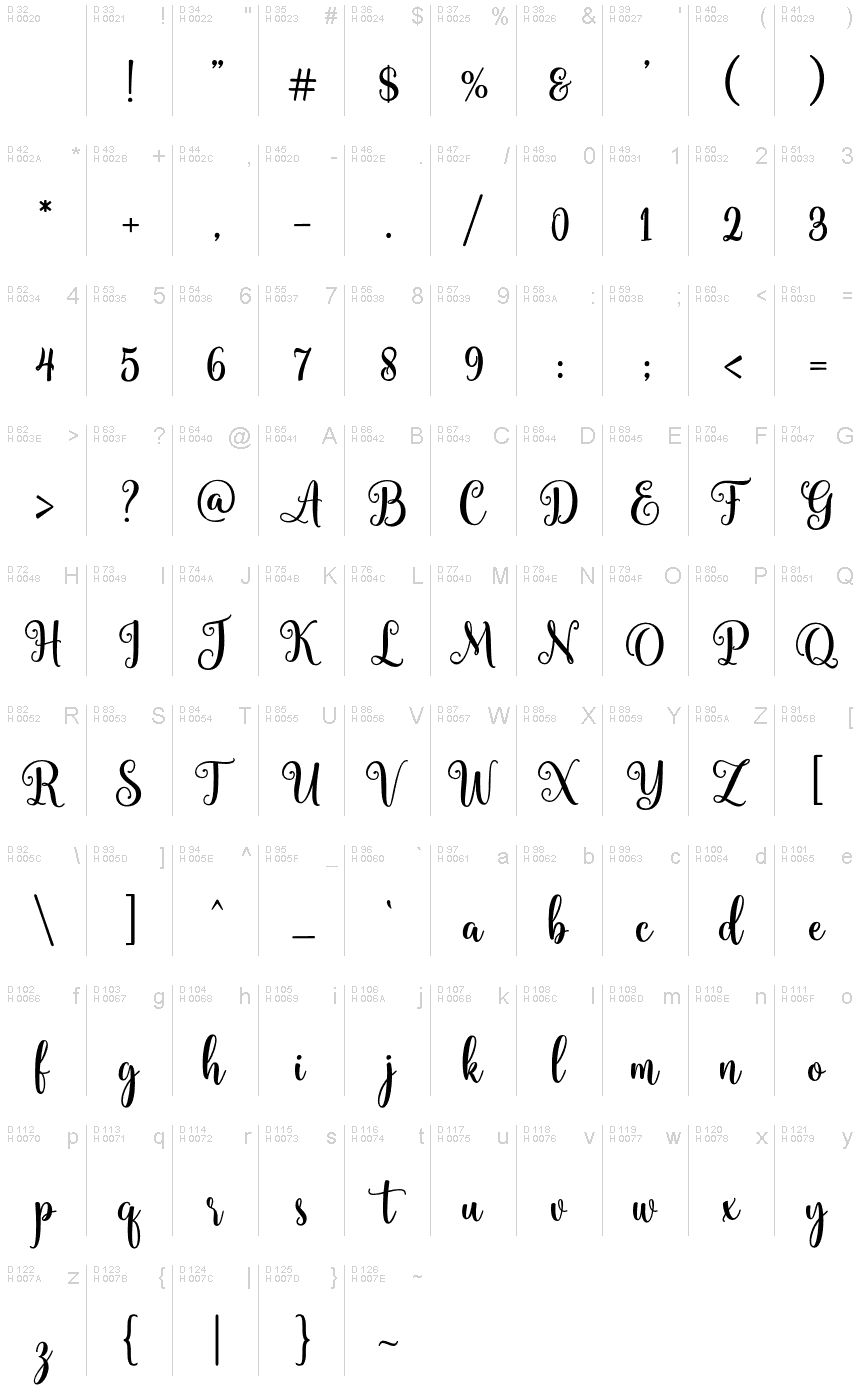
Catherina
Catherina, designed by Letternun, emerges as a font that exudes elegance and modernity, wrapped in the timeless beauty of calligraphy. Its semi-light weight lends a delicate and refined touch to its flowing lines, making it an exceptional choice for those seeking to infuse their projects with a sense of sophistication. The artful balance between classic calligraphic strokes and contemporary design nuances ensures that Catherina stands out as a versatile typeface.
The aesthetic appeal of Catherina is characterized by its graceful curves and subtle contrast, which create an inviting visual rhythm perfect for invitations, branding, and editorial work. Its style resonates with creatives who appreciate a font that can convey both warmth and professionalism.
Whether applied to digital platforms or printed materials, Catherina's distinct character enhances the narrative of any creative endeavor. This font is not just a typographic choice; it's an artistic statement poised to elevate the visual language of designers across diverse mediums.